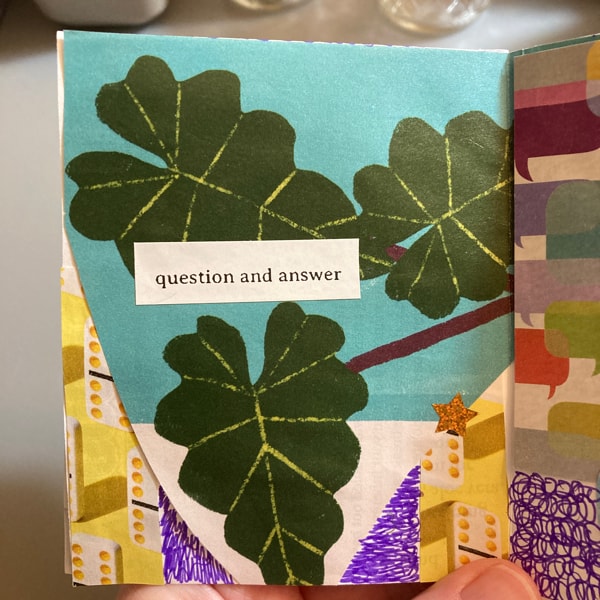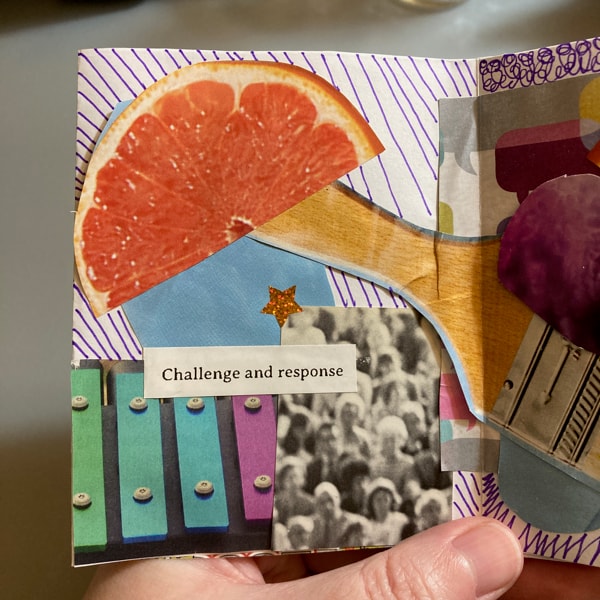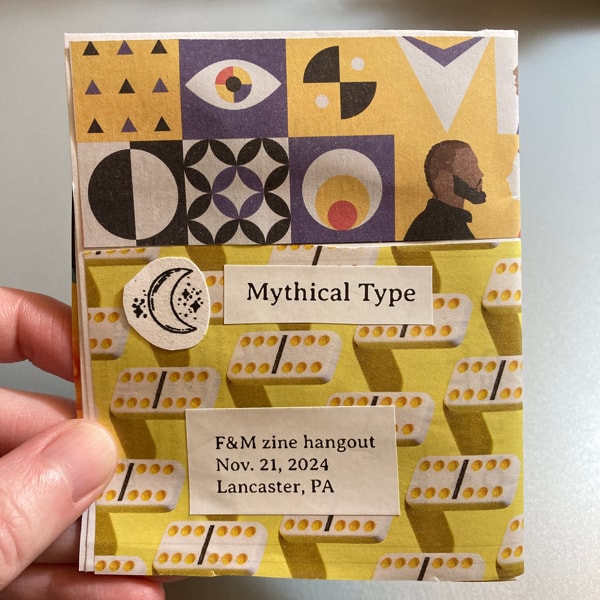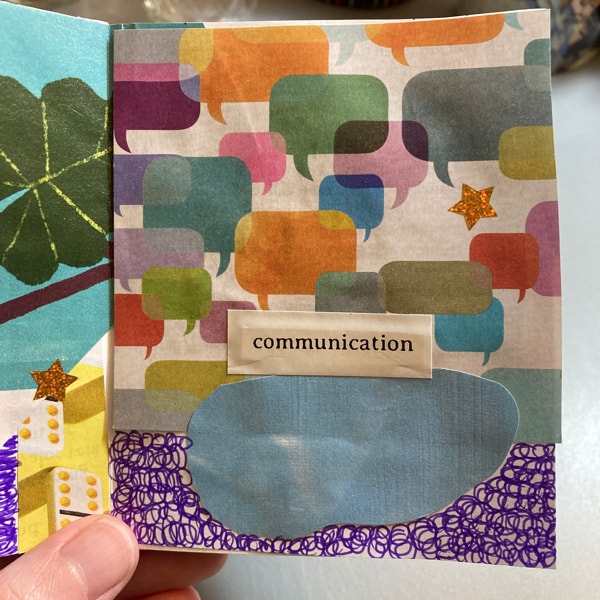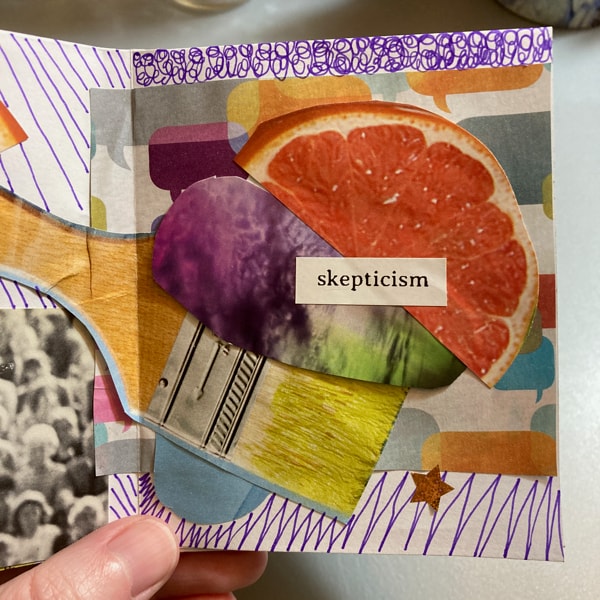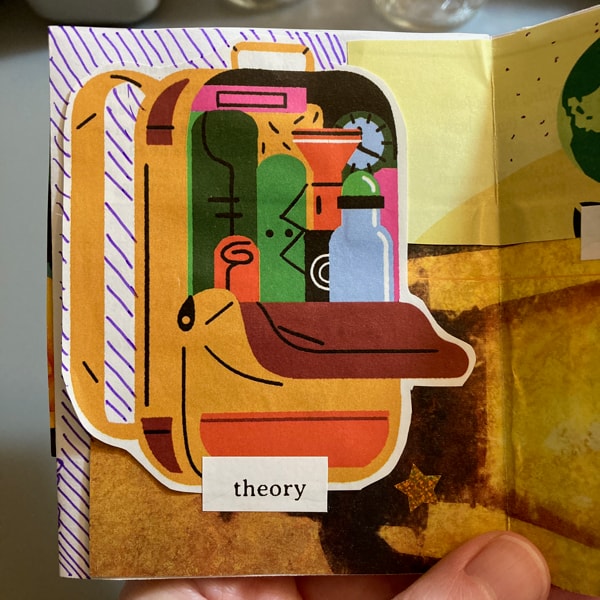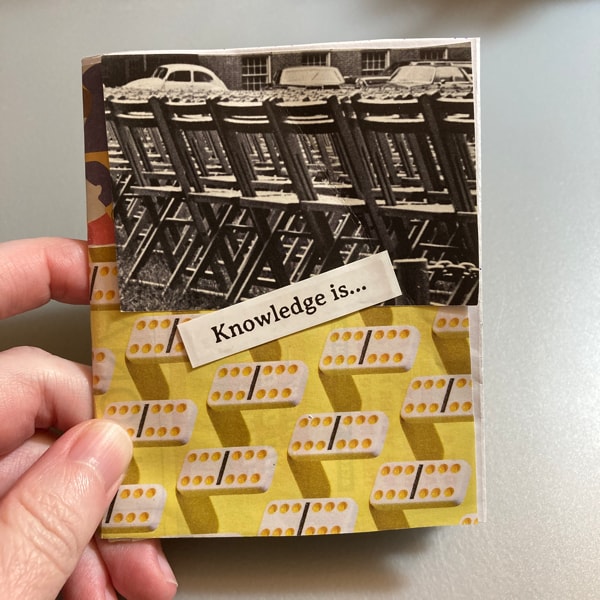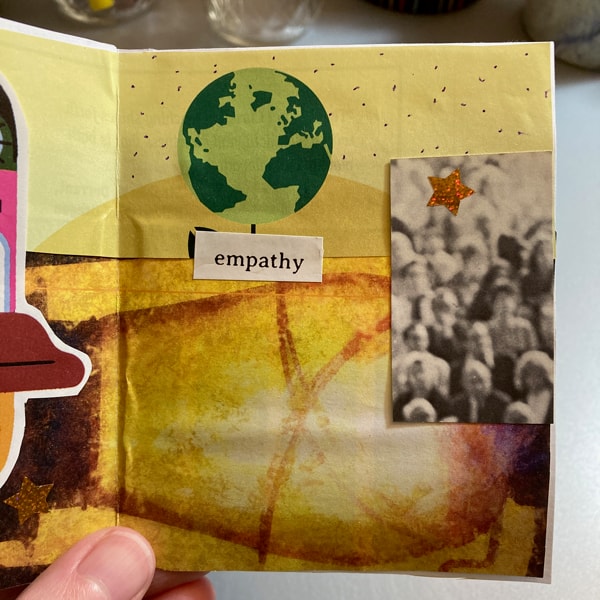
Here’s a collage zine I started at a local zine hangout on Thursday and finished tonight.
I like experimenting during zine-making events, so this style is very different from the zines I usually make.
The images are pretty random. 😂 I was looking more at colors and patterns, with less regard for items in each image. Text is inspired by old card catalog entries (cards were on the tables, among archival materials available to use).
The cover of a zine titled, Knowledge is. A black and white photo at the top shows rows of wooden folding chairs. The bottom image shows domino tiles on a yellow background.
Collage elements on the page include a slice of grapefruit and xylophone keys. A strip of text says, Challenge and response.
Collage elements on the page include a slice of grapefruit, a paintbrush, and speech bubbles. Text says, skepticism.
Collage elements on the page include large green leaves on a teal background. Text says, question and answer.
A collage page filled with speech bubbles in different colors and sizes. Text says, communication.
A collage page that features an illustrated backpack, with the front flap open to show a water bottle, flashlight, and other items. The text says, theory.
A collage page with a globe of Earth, a large lightbulb, and a black and white photo of a crowd of people. The text says, empathy.
The back cover of the zine includes graphic patterns and an image of domino tiles on a yellow background. The text says, Mythical Type. F&M zine hangout. Nov, 21, 2024. Lancaster, PA.